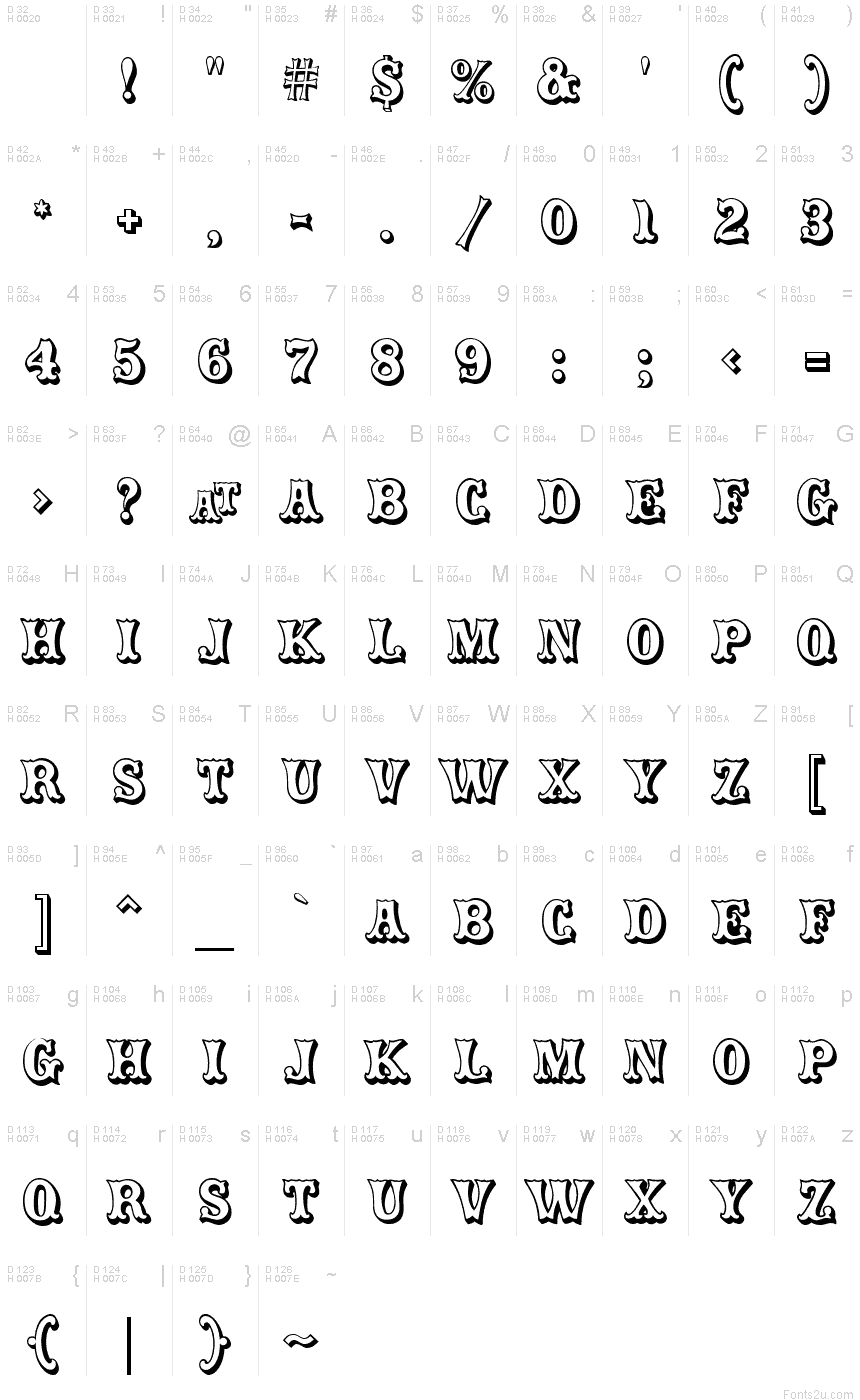
CarnivalMF OpenShadow
CarnivalMF OpenShadow font by Richard William Mueller is a free retro display typeface that drops you straight into a striped big top. The bold CarnivalMF letterforms swell at the bottom like draped fabric, with inky outlines and airy open interiors that feel like painted woodcut signs. It has that slightly wobbly, hand-done rhythm that makes every word look like a sideshow banner or ticket booth sign.
Using CarnivalMF OpenShadow, headlines instantly shout “funfair”: it shines on circus or carnival posters, party invitations, festival branding, themed restaurant menus, t‑shirt graphics, and vintage-style packaging. This free font loves to be set large in all caps so the sculpted curves and shadowed contours can breathe; pair it with a simple geometric sans-serif for body copy to keep the artwork readable and let the ornate letters steal the spotlight.